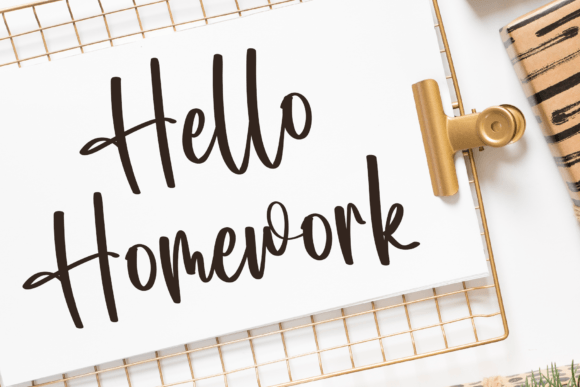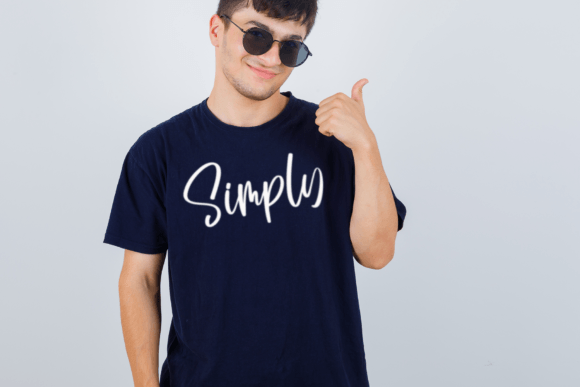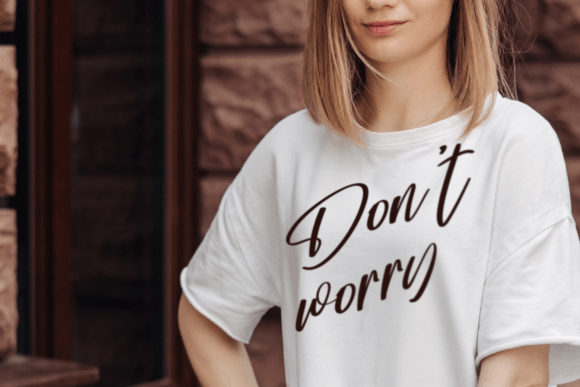
About Simple Present Font
Simple Present is a neat and beautiful handwritten font described by an elegant touch, perfect for your favorite projects. Fall in love with its incredibly distinct and timeless style, and use it to create spectacular designs!